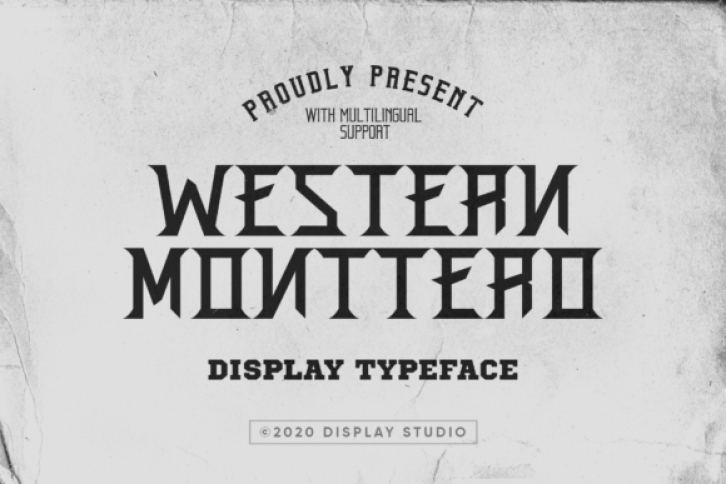
Western Monttero is an incredibly unique display font, designed with a vintage style. Masterfully designed to become a true favorite, this font has the potential to bring each of your creative ideas to the highest level!